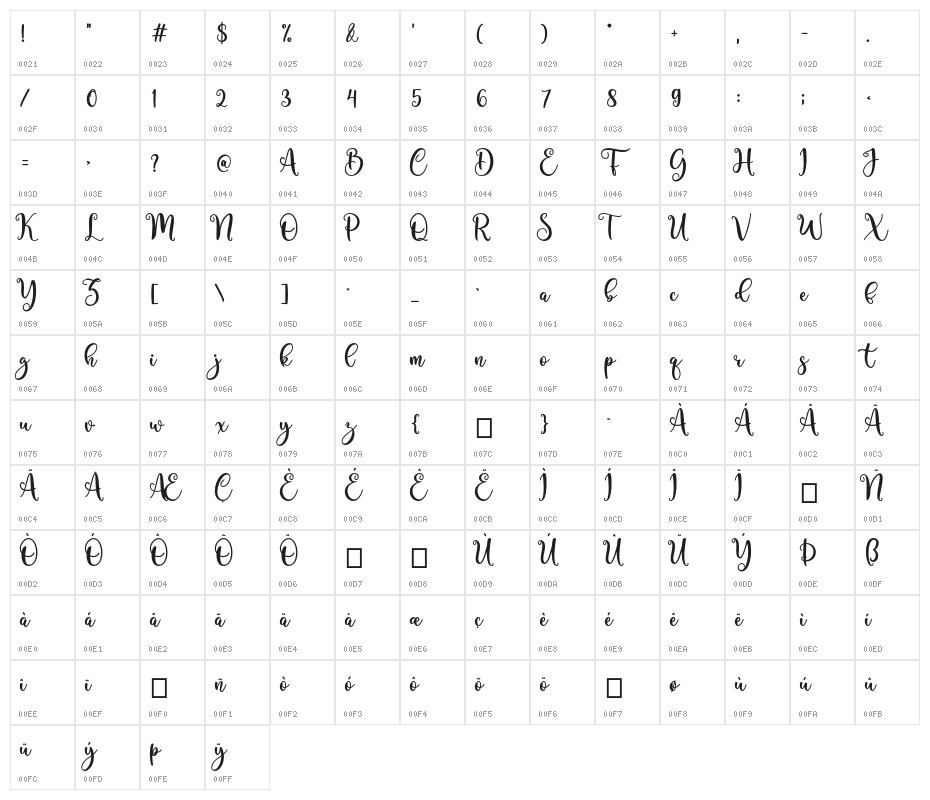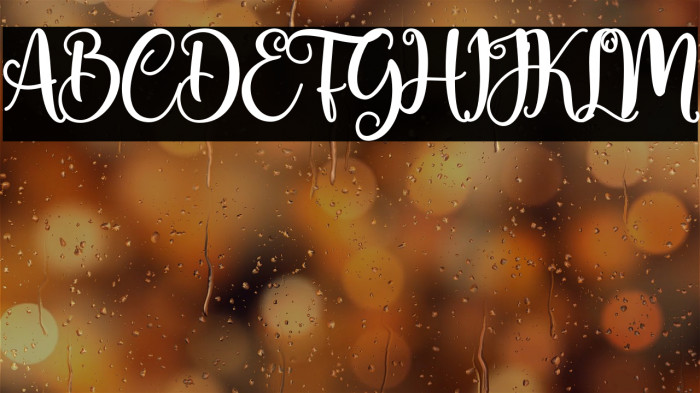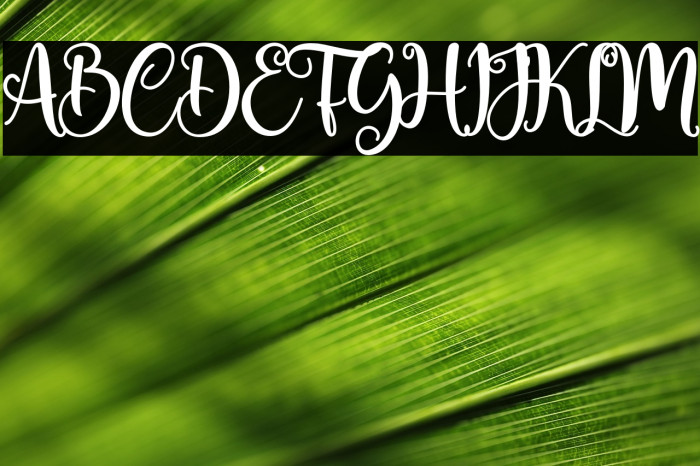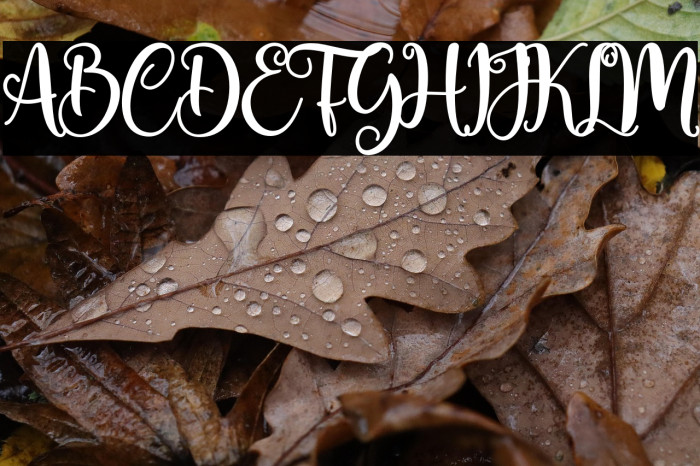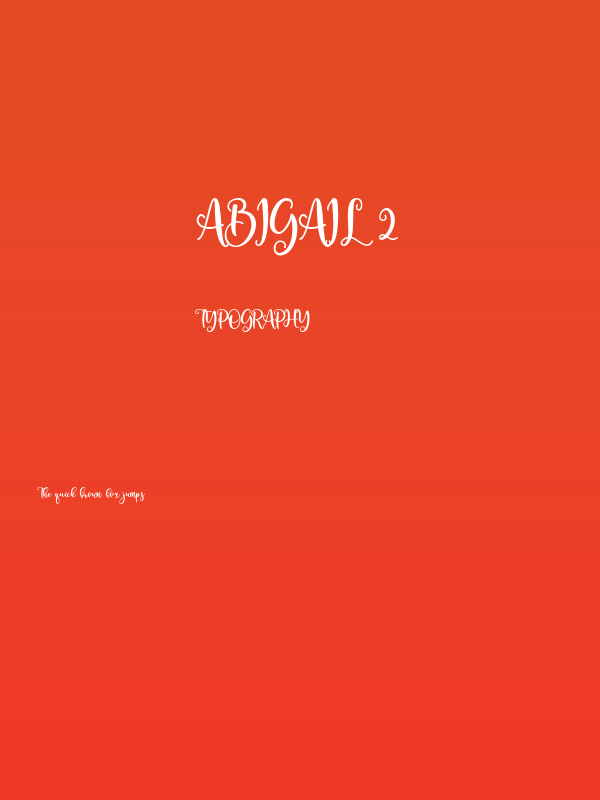
Abigail 2 Font
Abigail 2 Description
This font features a whimsical and elegant script style with a playful yet sophisticated appearance. The uppercase letters are characterized by their flowing, cursive lines and decorative loops, giving them a sense of movement and grace. The lowercase letters maintain a similar style, with smooth, rounded curves and a consistent stroke width that adds to the font's readability. The numerals are designed to match the overall aesthetic, with a slight flourish that complements the letters. Special characters are included, maintaining the same decorative quality. This font is perfect for projects that require a touch of elegance and creativity.
| Use Case | Logos, Invitations, Decorative Text |
| Proposed Projects | Ideal for wedding invitations, greeting cards, branding, and decorative posters. |